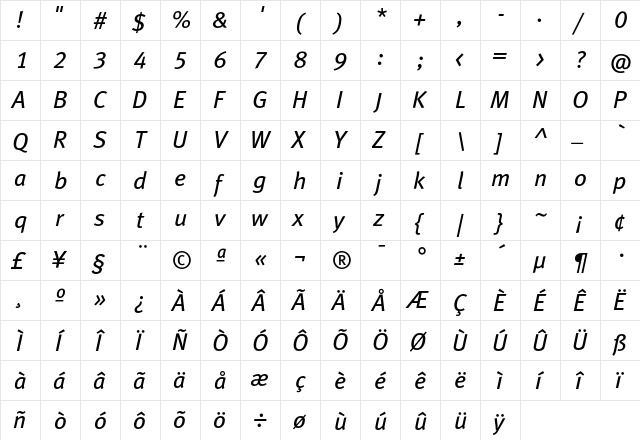
MetaBookTurkLF Italic
Design Context for MetaBookTurkLF Typeface
MetaBookTurkLF is a composed and adaptable typeface that performs quietly and consistently across a wide range of design contexts. The dynamic lean of this cut emphasises speed and emphasis in any layout.
Pro Tip: Use MetaBookTurkLF for emphasis, pull quotes, and subheadings where its slanted energy can add rhythm to the layout.